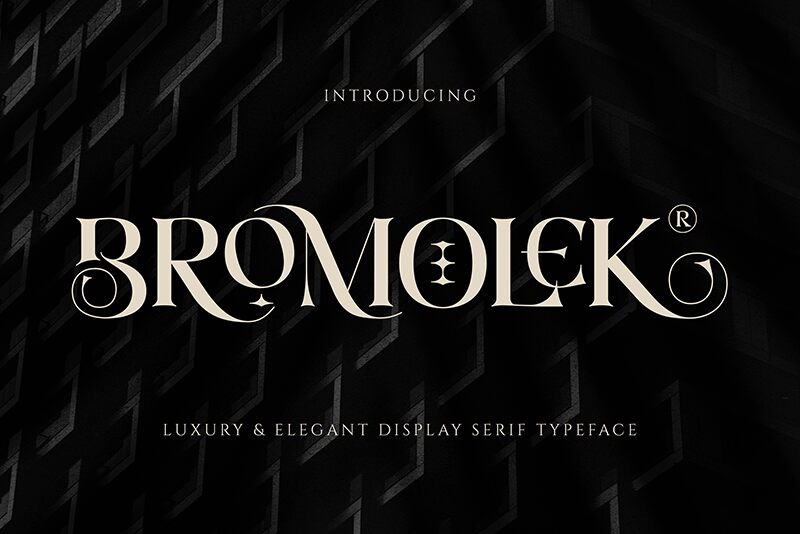
Bromolek font family, by Almarkhatype, consists of 2 font styles with a classic elegant character. Its ornamented shapes introduce a decorative element that makes it both sophisticated and artistic. This free font family is predominantly serifed and it excels both in its superior design and presentation. With varied weights and widths, it focuses on certain keystrokes, resulting in variable contrast.
Use the formal Bromolek font in classic yet creative artistic projects such as flyers, posters, and other printed material relating to exhibitions, concerts, and talks. It can also be used for digital texts and brochures where a solid sophisticated font is needed.